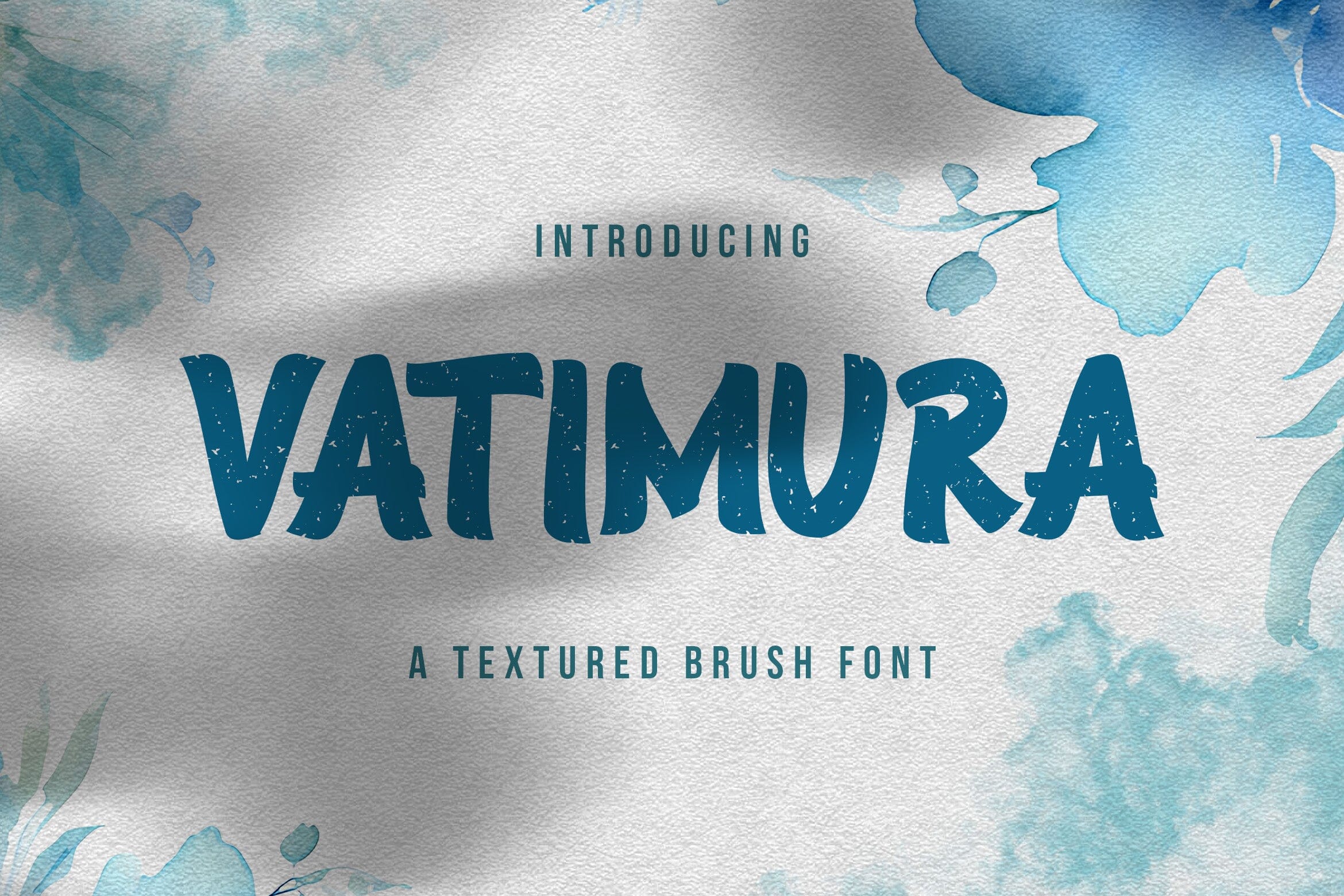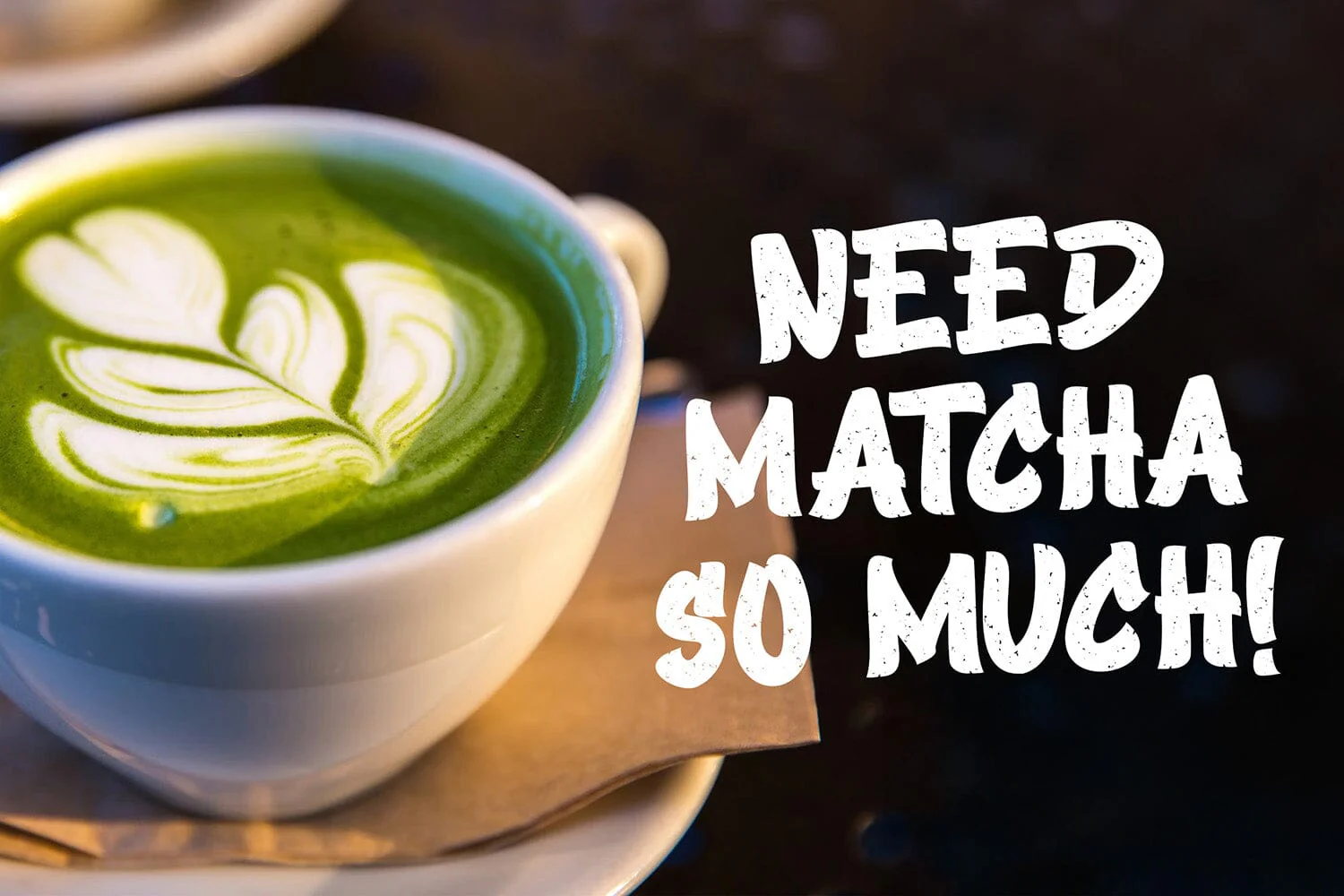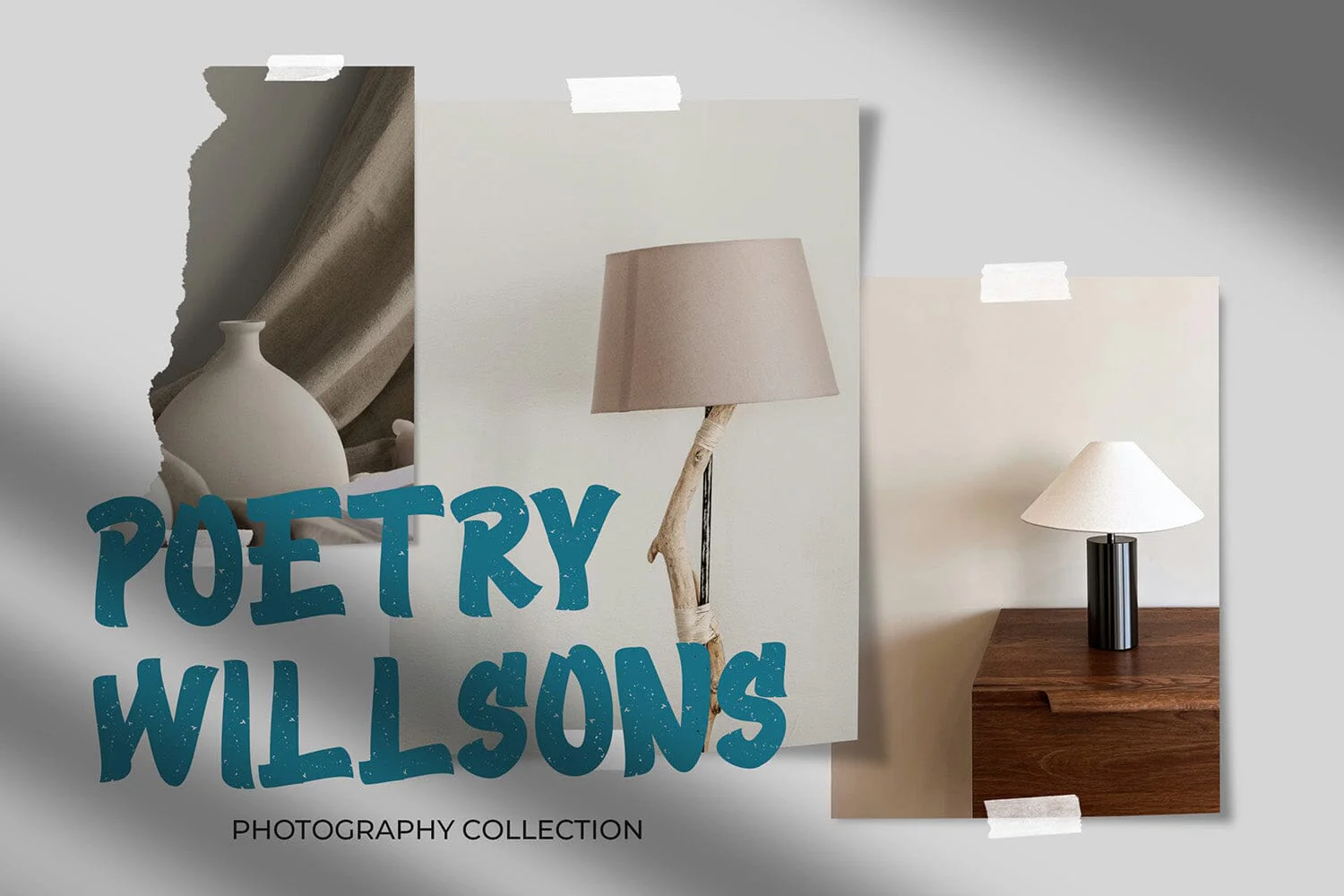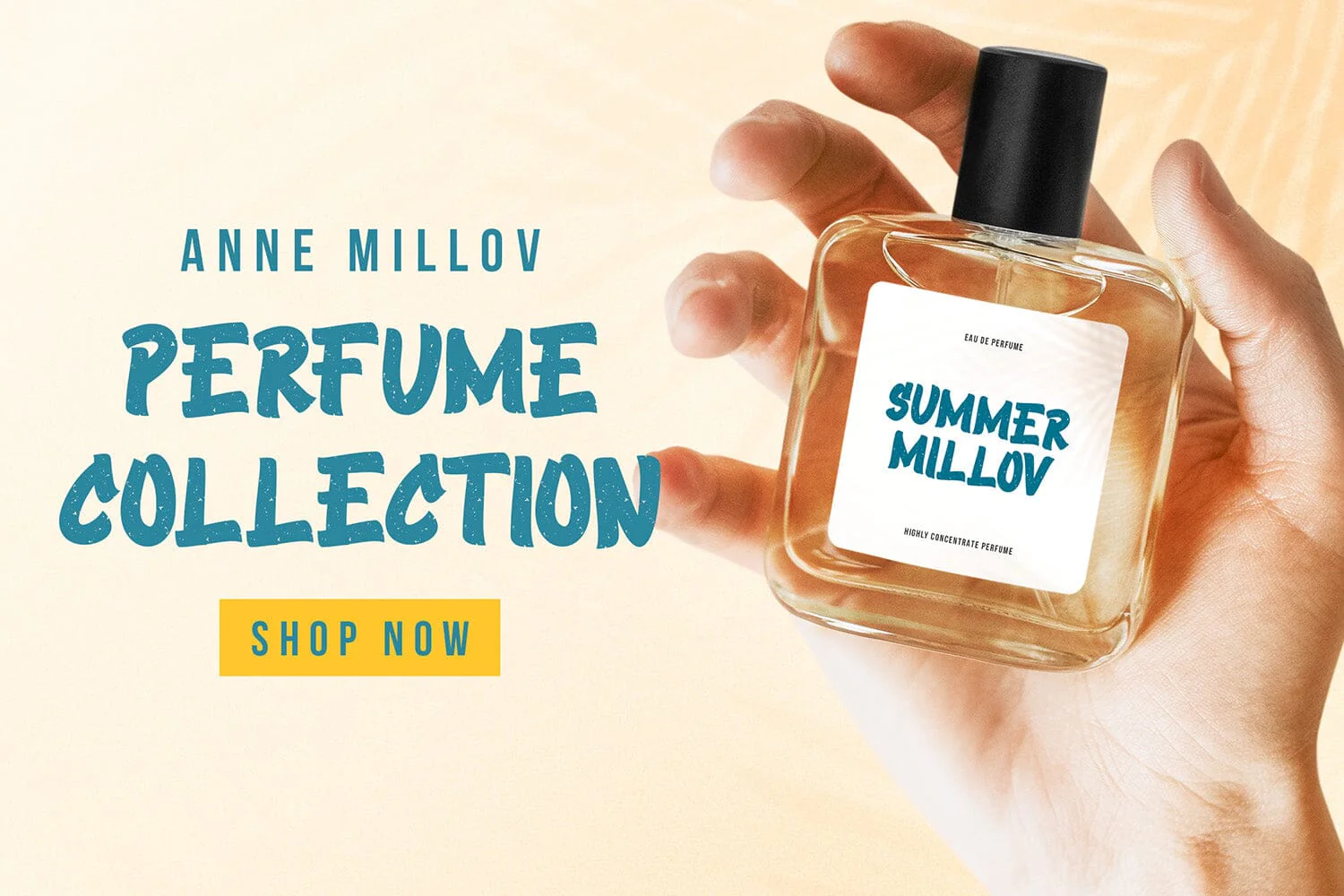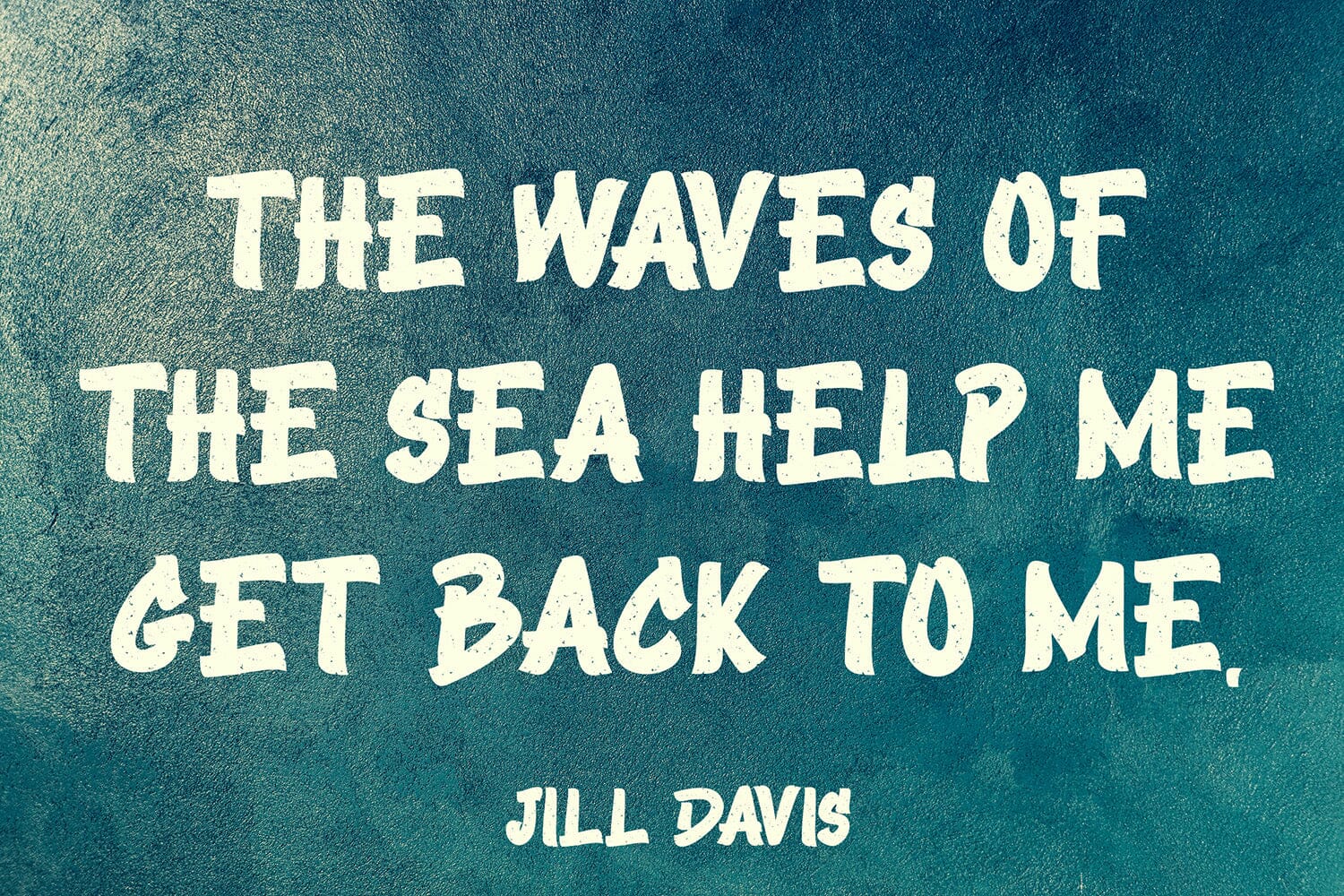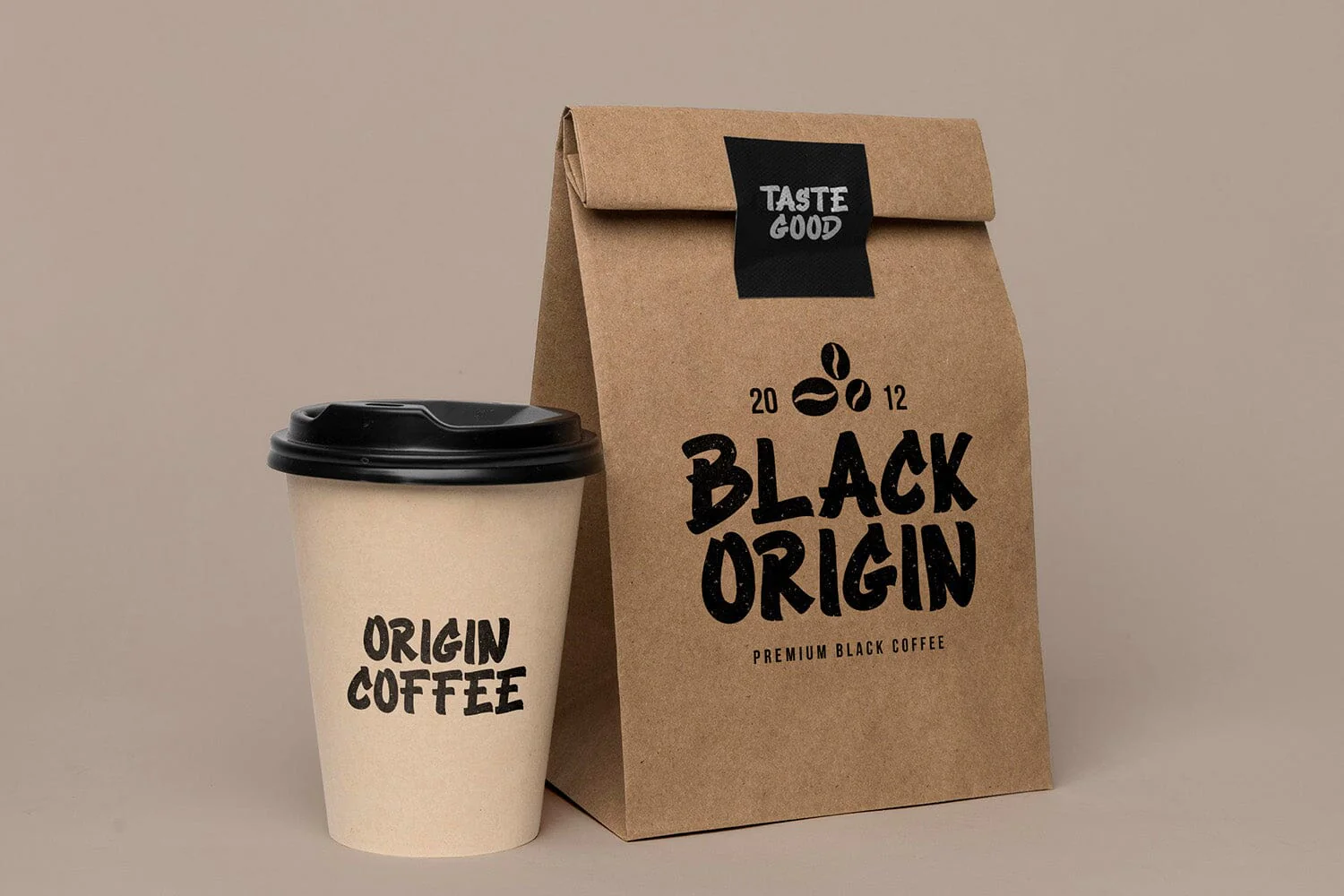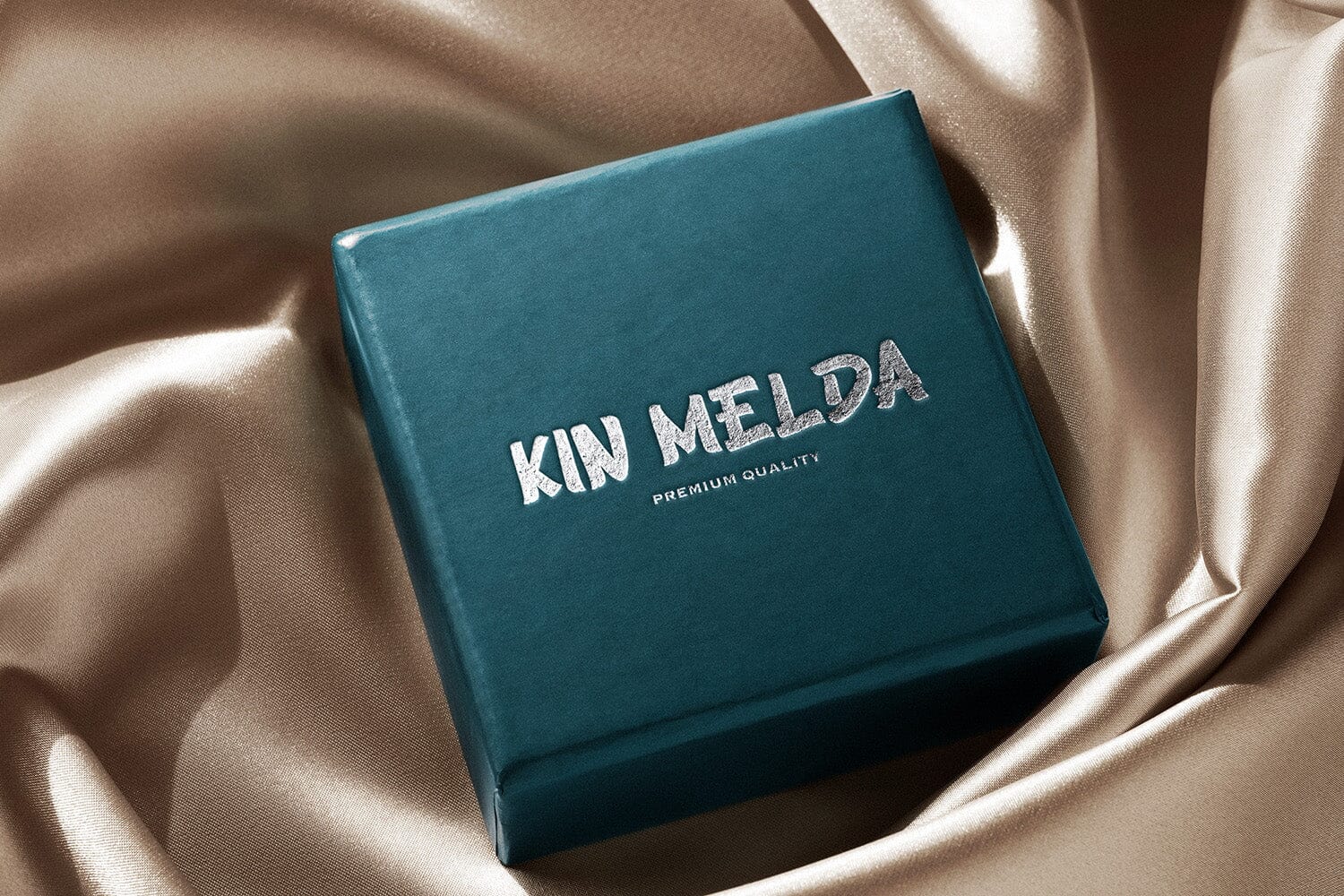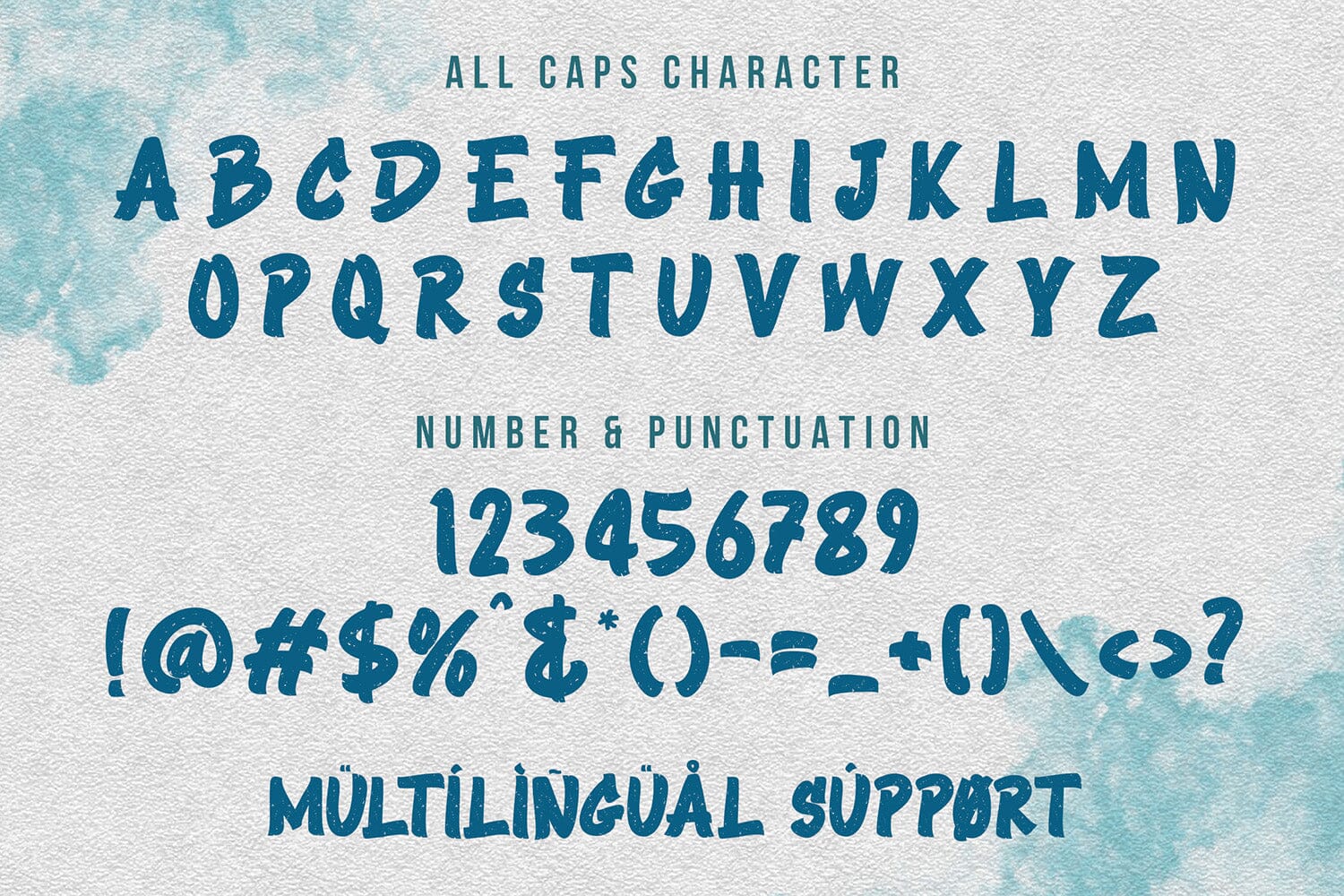
Vatimura - Textured Brush Font
Introducing Vatimura - Textured Brush Font
Vatimura is a textured brush font designed with natural brush strokes and rough artistic details. Its organic texture and handcrafted style create a bold and expressive look that brings authenticity and character to any design.
This font works perfectly for logos, branding, posters, headlines, packaging, social media graphics, and creative typography projects. Vatimura delivers a strong handmade feel that makes designs appear more artistic and visually engaging.
With its textured brush style and expressive letterforms, Vatimura adds a dynamic and creative touch that helps your typography stand out.